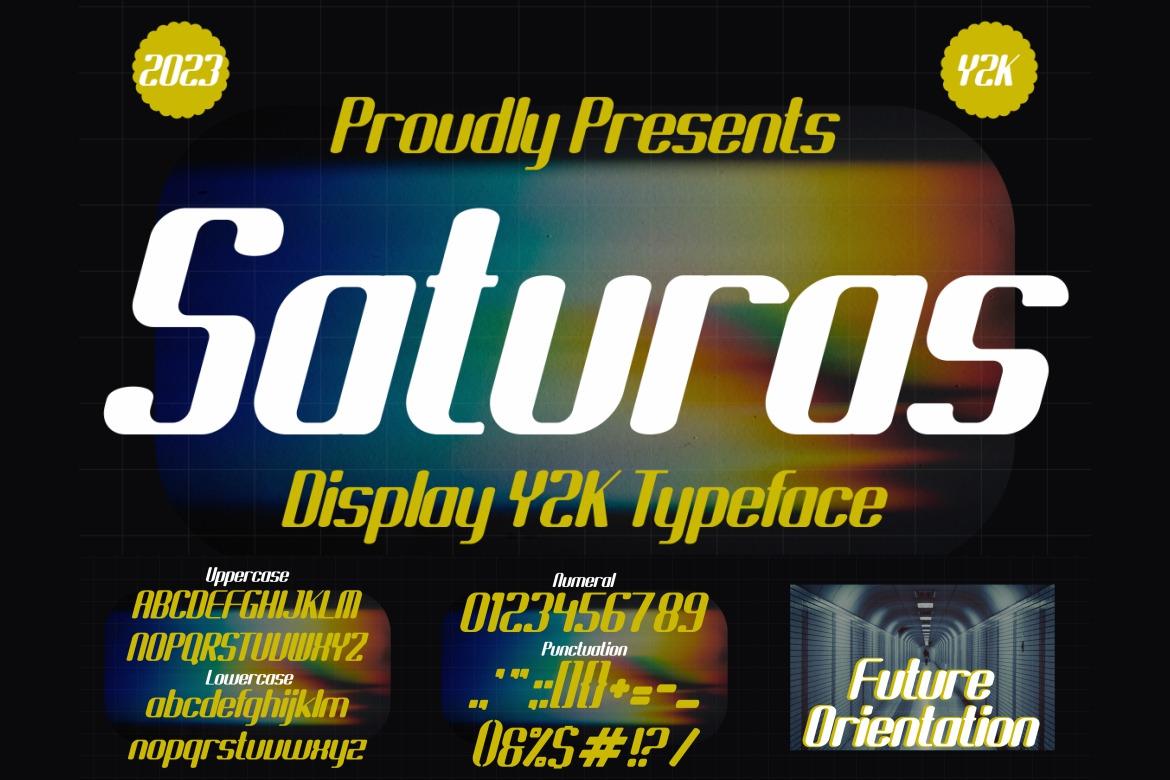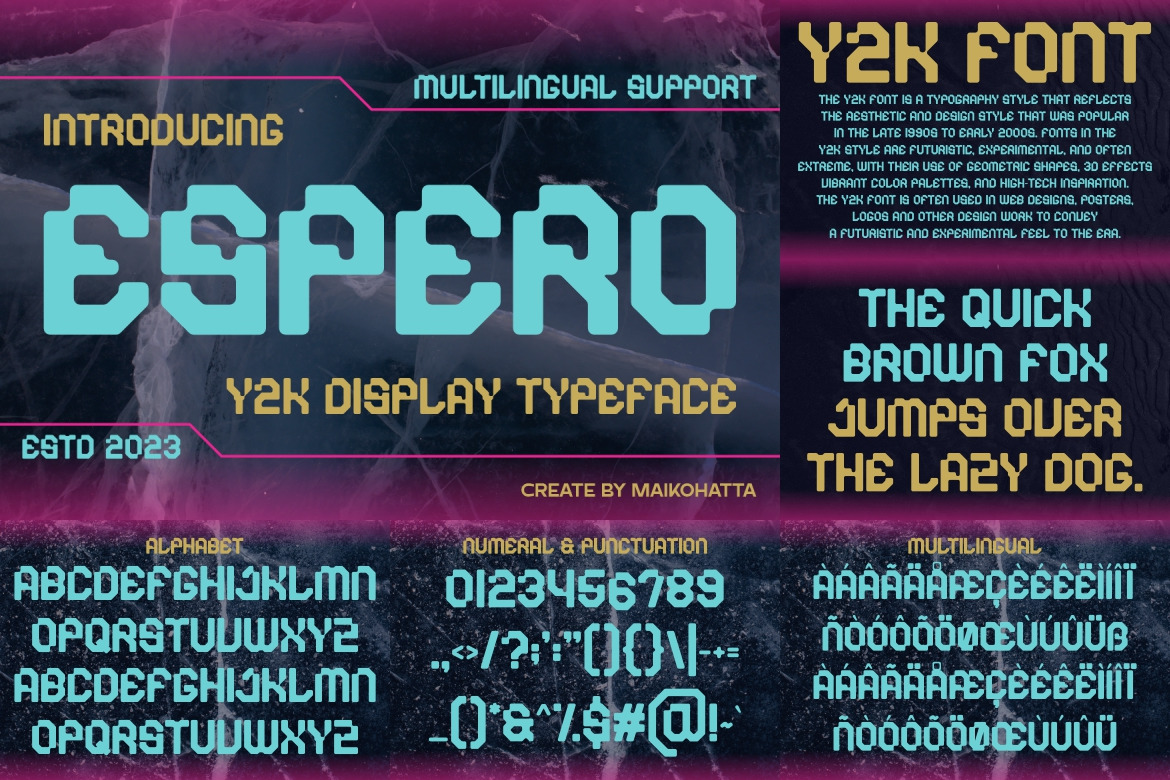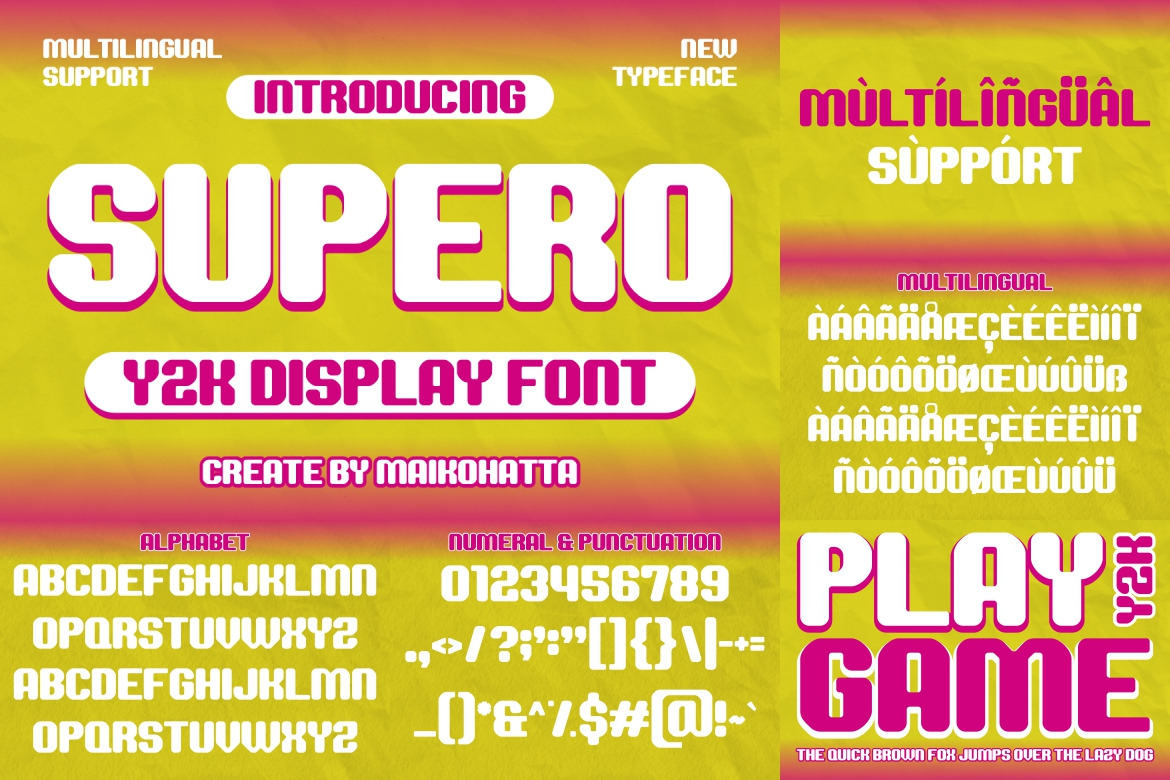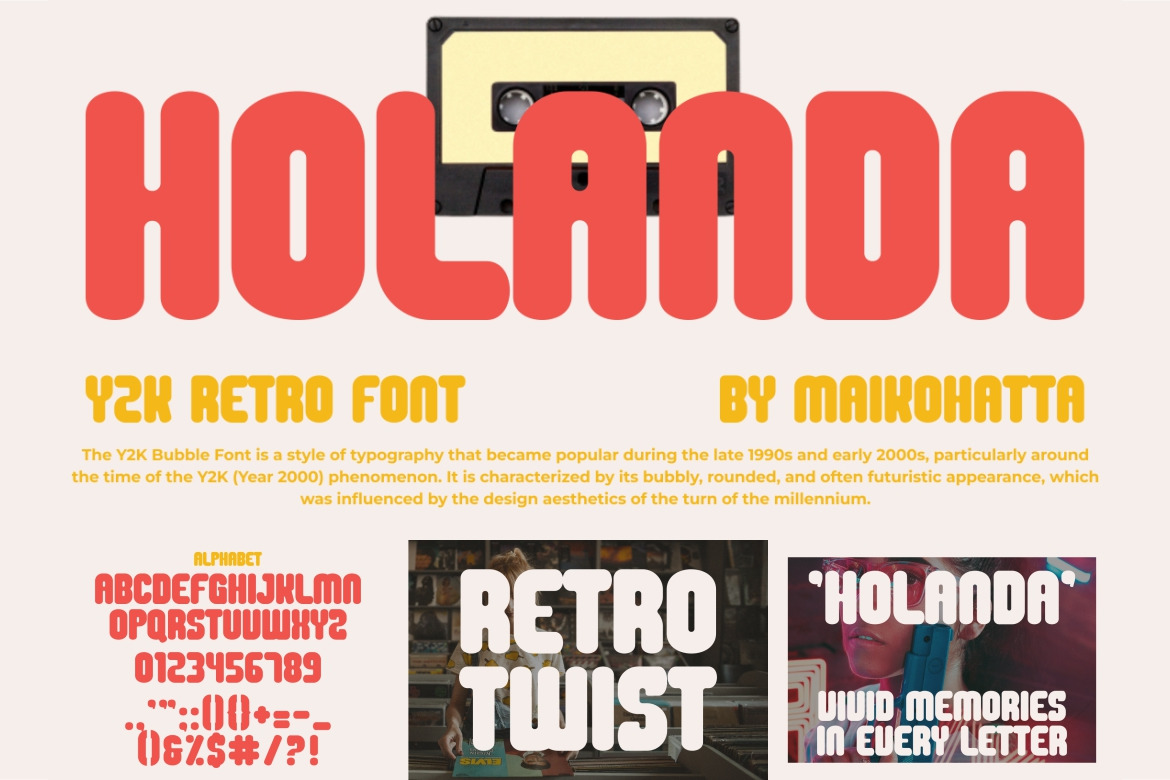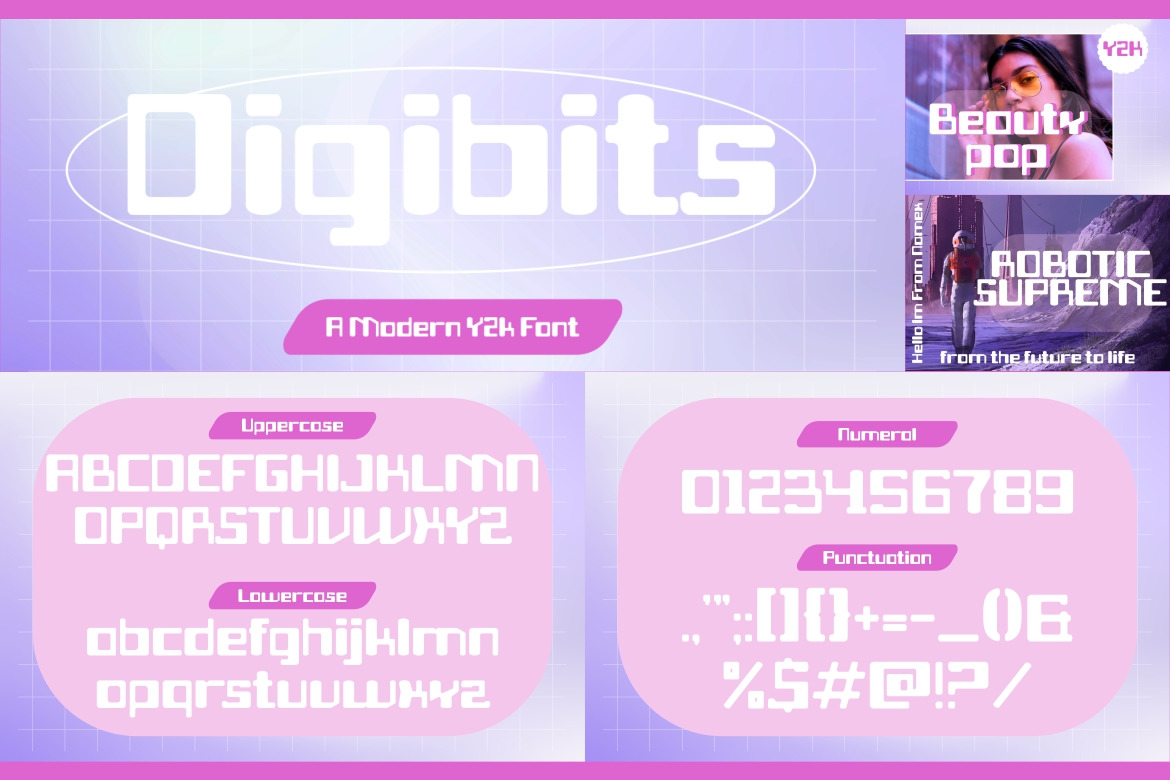
Modern Y2K Font Bundle
Introducing our new product **Modern Y2K Font Bundle**
This Font Bundle is a visual representation of the Y2K (2000) aesthetic featuring futuristic style, technology, and early 2000s digital elements. This font combines elements such as old computer displays, pixels, neon and geometric shapes reminiscent of the technological developments of its time.
* Uppercase
* Lowercase
* Multilingual ( Espero, Supero )